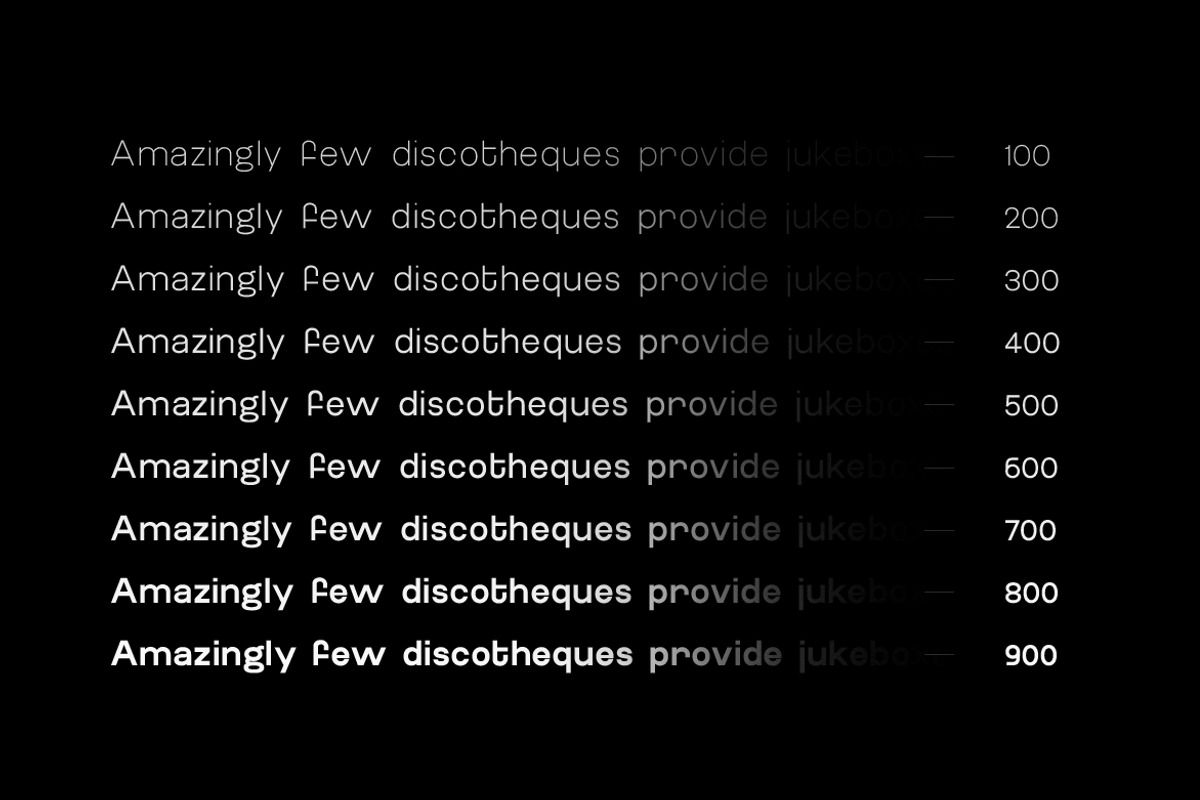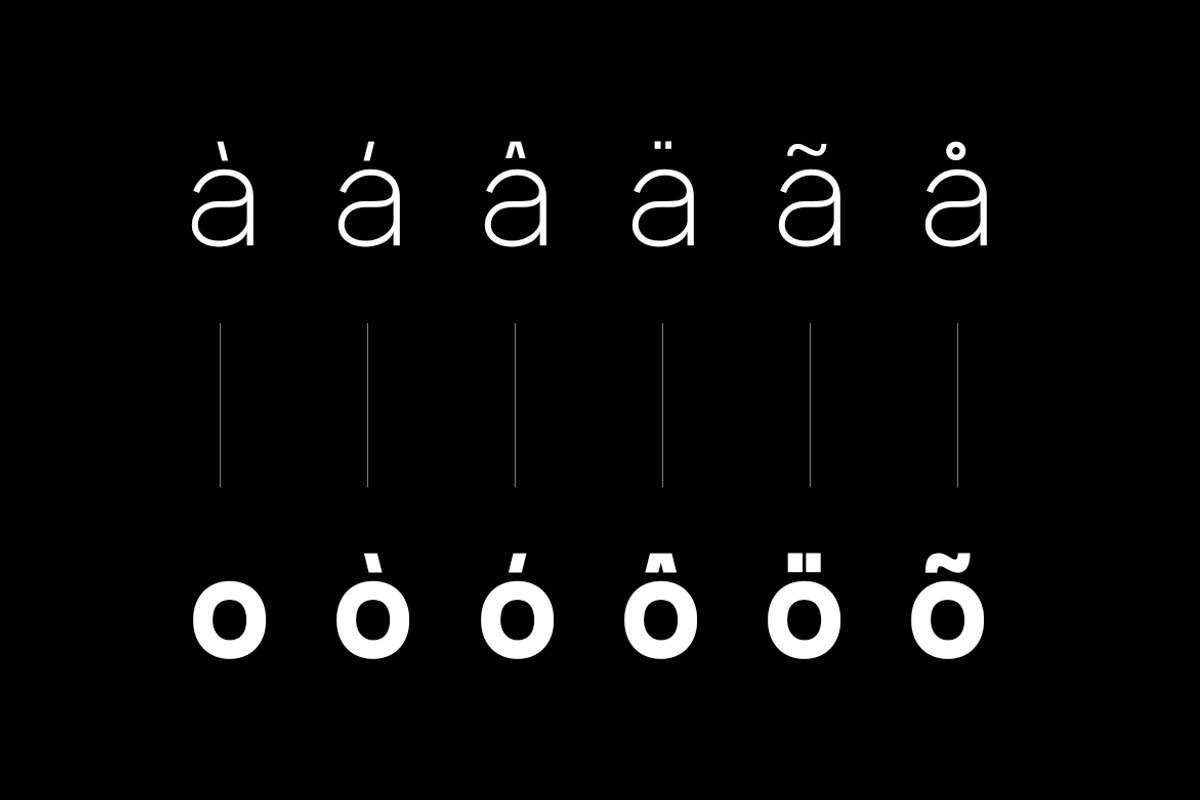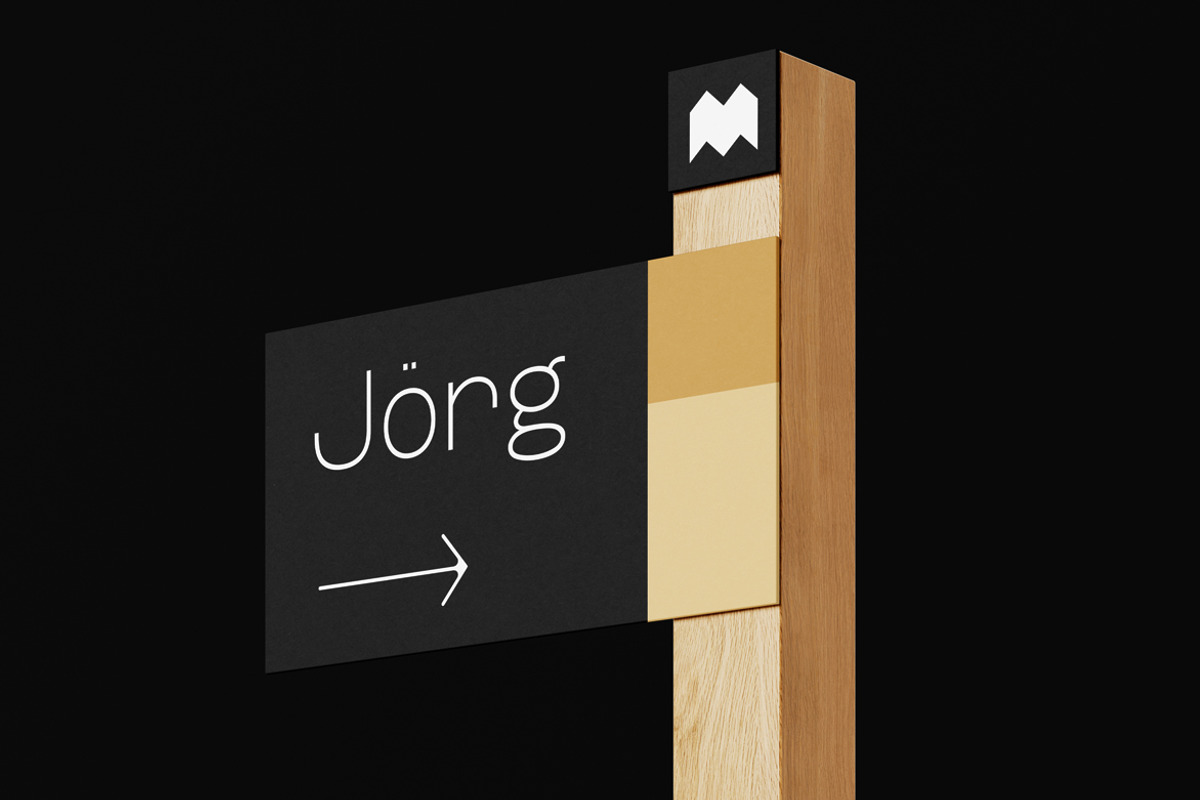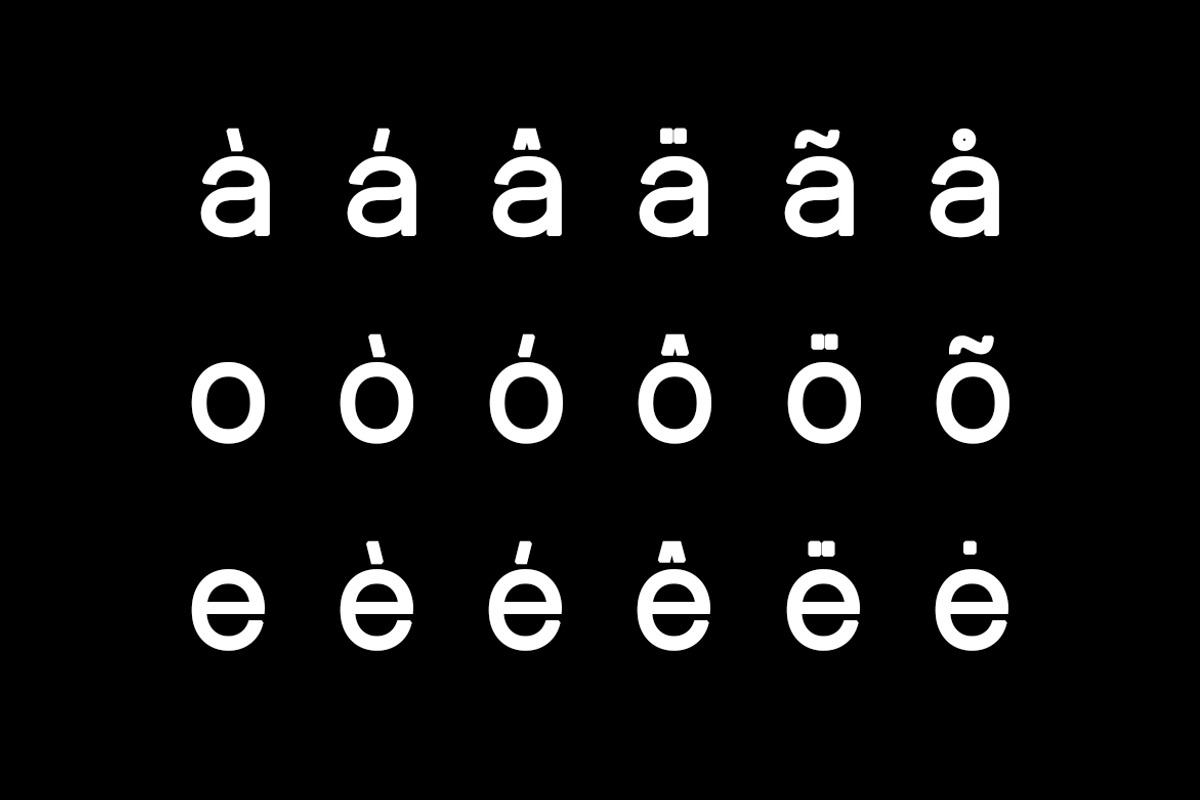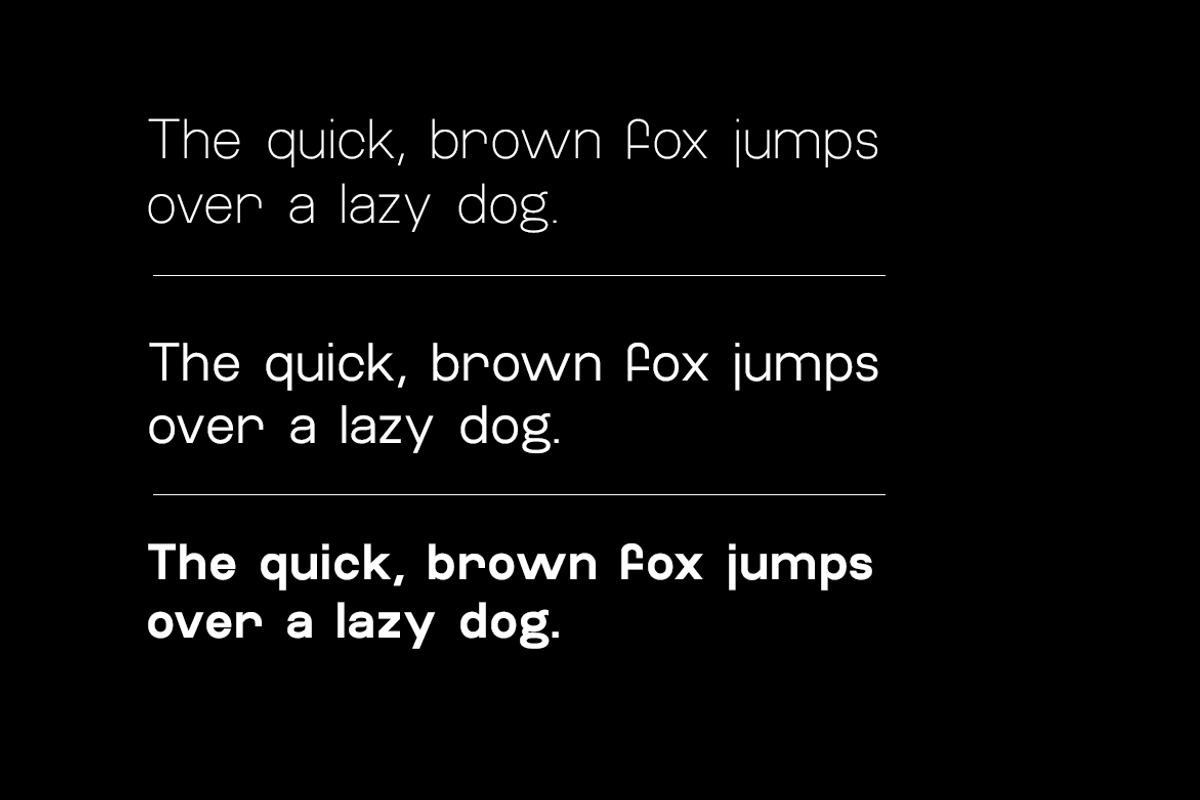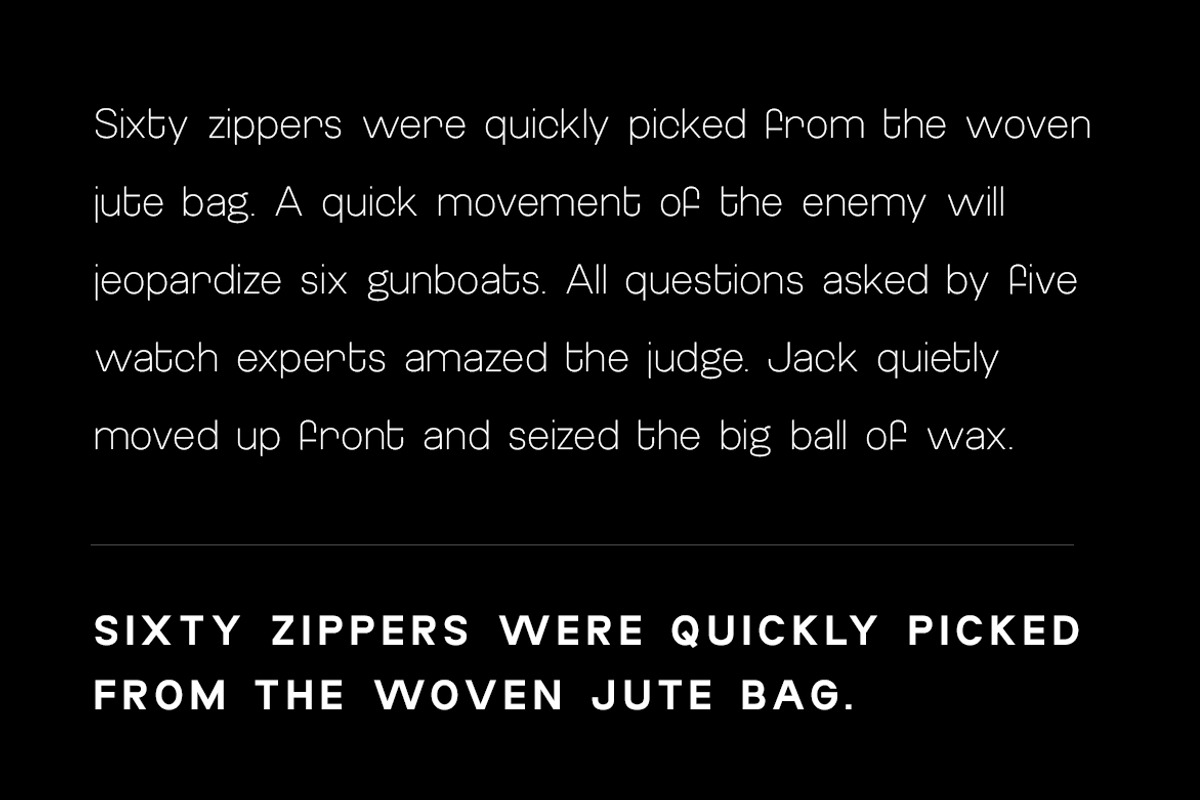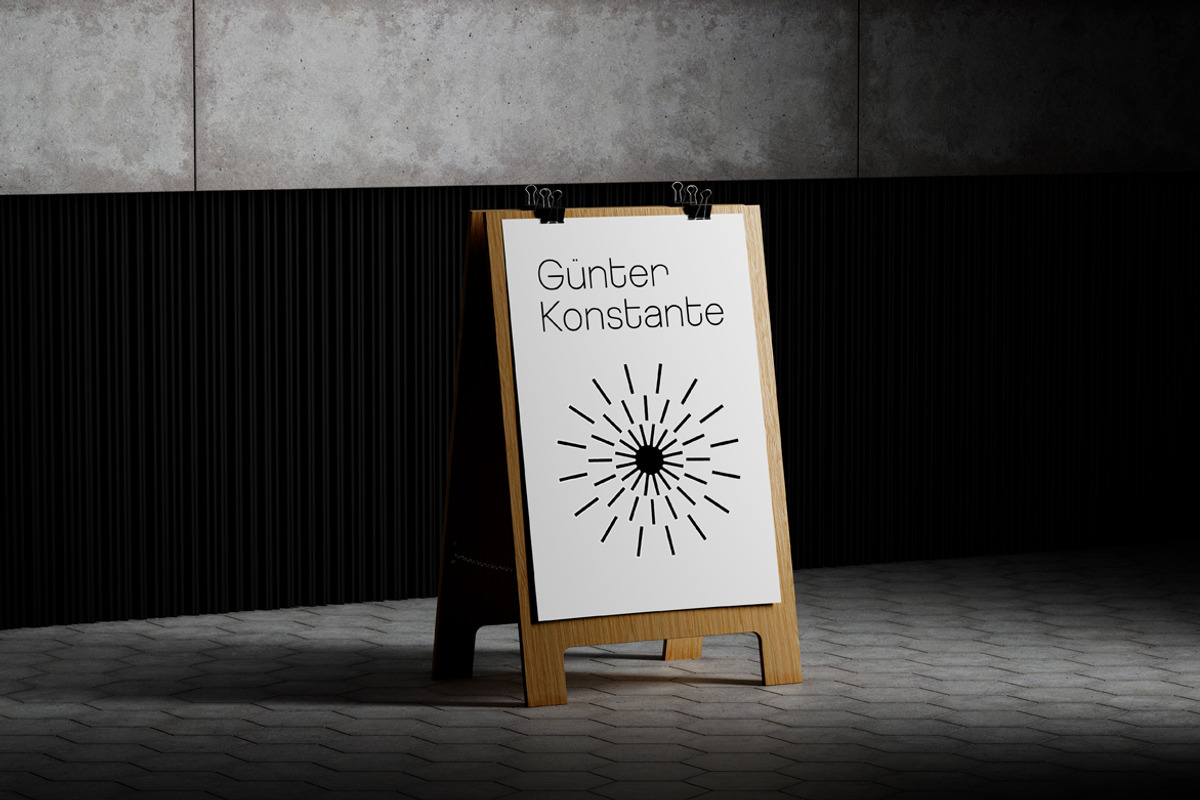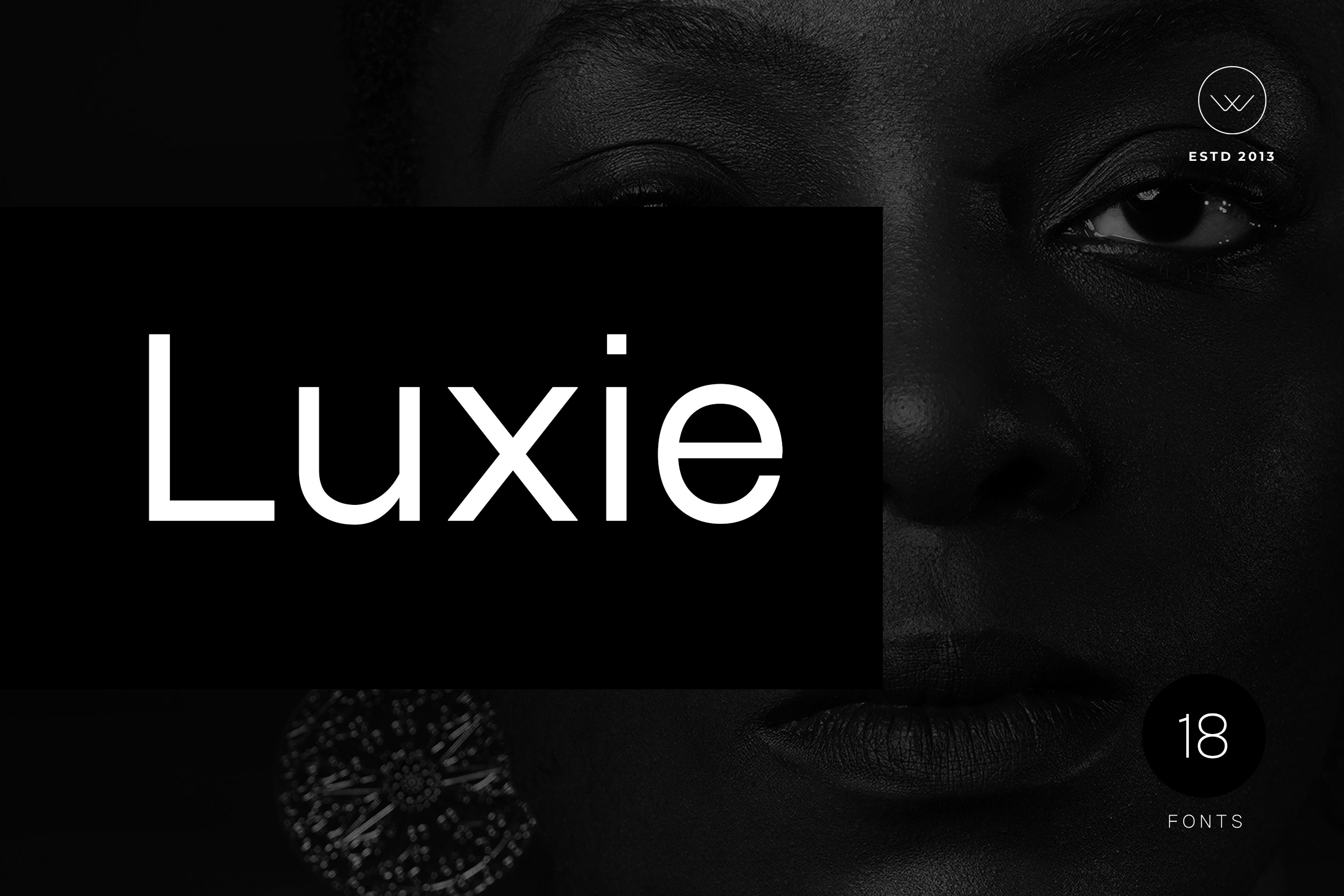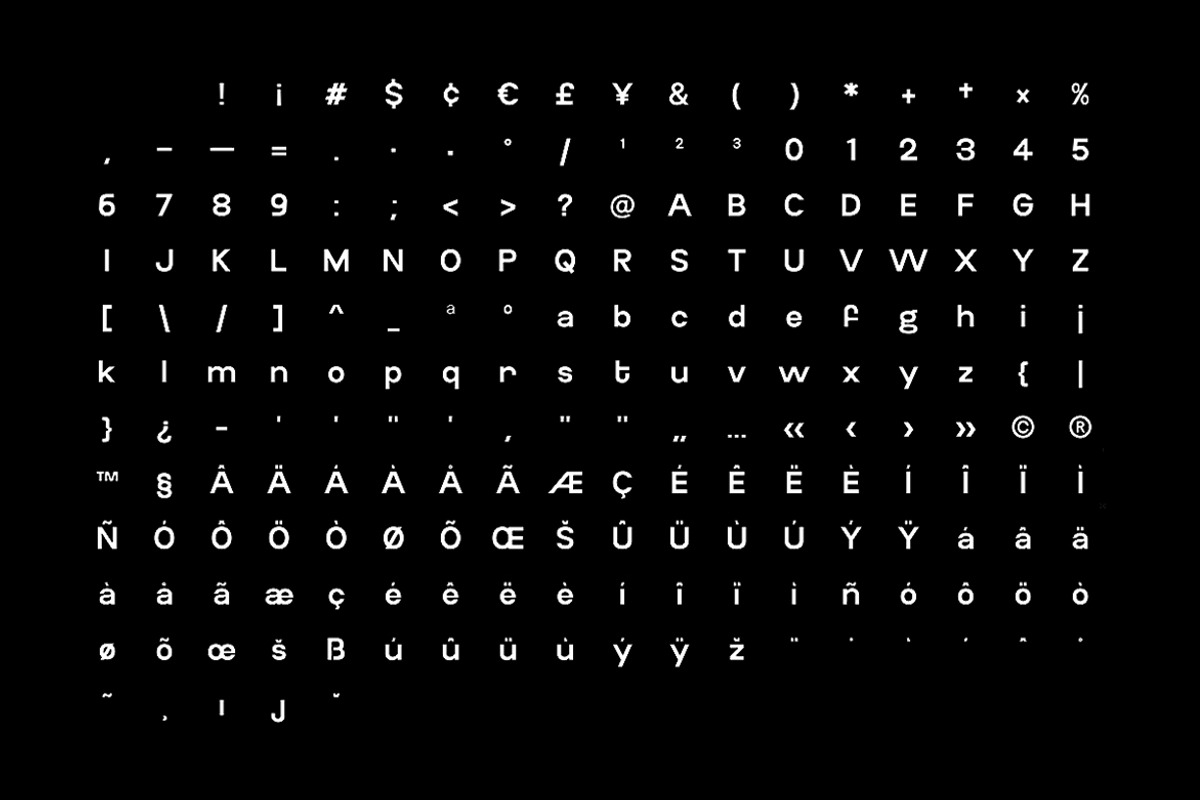
Luxie - A Premium Sans-serif Font
Luxie is a modern minimalist sans-serif font designed for clarity and style. With smooth curves, balanced geometry, and extended Latin character support, Luxie fits perfectly into branding, editorial design, packaging, and digital interfaces. It includes full support for accented characters (such as à, á, â, ä, ã, å, ò, ó, ô, ö, õ, è, é, ê, ë, and more), making it ideal for multilingual use.
Luxie features 9 weights, from Thin to Black, each with matching true italics. Whether you’re designing bold headlines or clean body text, Luxie delivers a timeless and versatile look that adapts to any project.
Supported Languages: Afar, Afrikaans, Aragonese, Asu, Bemba, Bena, Catalan, Cebuano, Chiga, Corsican, Danish, Taita, German, English, Spanish, Basque, Filipino, French, Friulian, Western Frisian, Irish, Scottish Gaelic, Galician, Swiss German, Gusii, Manx, Interlingua, Indonesian, Ido, Italian, Lojban, Machame, Jju, Makonde, Kabuverdianu, Kalaallisut, Kalenjin, Shambala, Cornish, Latin, Luxembourgish, Ligurian, Luo, Luyia, Morisyen, Malagasy, Makhuwa-Meetto, Malay, Norwegian Bokmål, North Ndebele, Low German, Dutch, Norwegian Nynorsk, Norwegian, South Ndebele, Northern Sotho, Nyankole, Occitan, Oromo, Portuguese, Romansh, Rundi, Rombo, Kinyarwanda, Rwa, Samburu, Sangu, Sardinian, Sena, Sango, Sidamo, Southern Sami, Shona, Somali, Albanian, Swati, Saho, Southern Sotho, Sundanese, Swedish, Swahili, Teso, Tswana, Taroko, Tsonga, Volapük, Vunjo, Walloon, Warlpiri, Xhosa, Soga, Zulu
Multilingual Font
Uppercase letters
Lowercase letters
09 Weights
09 Italics
18 Fonts Included
200+ Glyphs